Toni Watts: Art & Illumination – Medieval Techniques in Modern Application
Toni Watts was the speaker for our final social evening of 2018. Toni has a great interest in using natural colours and took us through how she makes her own paints and what she uses to produce them. She showed slides of some of the beautiful manuscripts belonging to Lincoln Cathedral and had also brought along some of her own work.
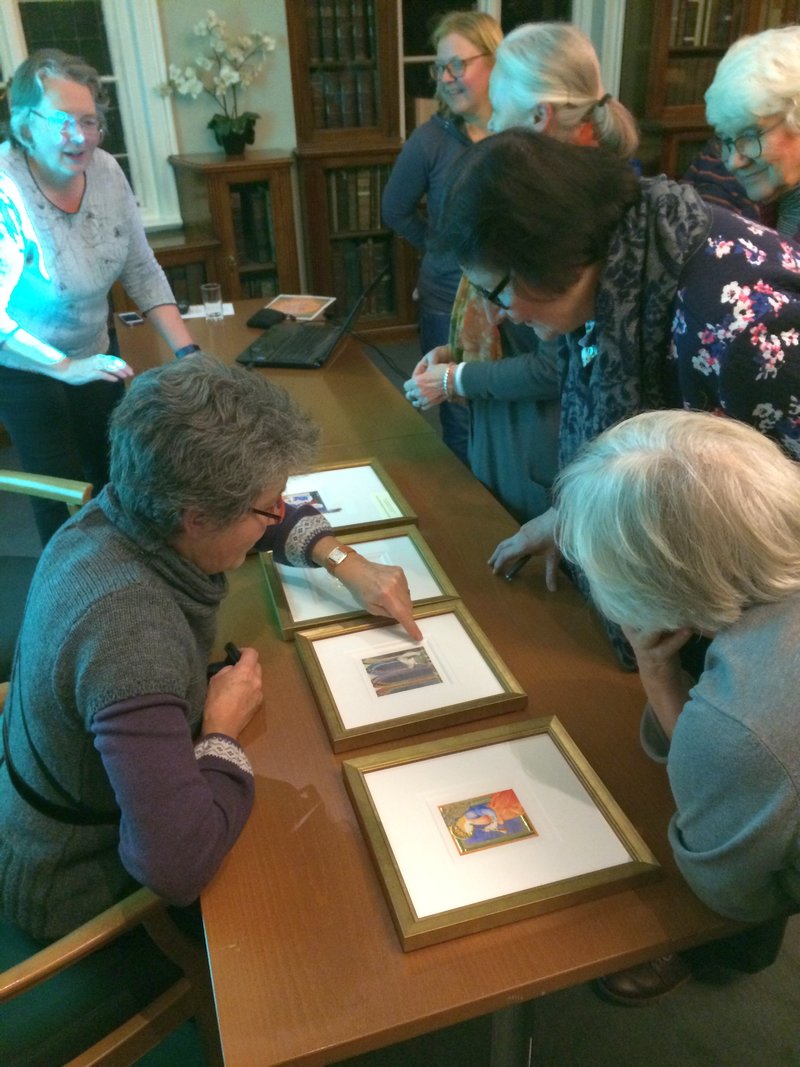
We all fell in love with the little koala bear sitting on a beautifully illuminated letter ‘K’. What an illuminating evening Toni gave us, a perfect way to round off the year.
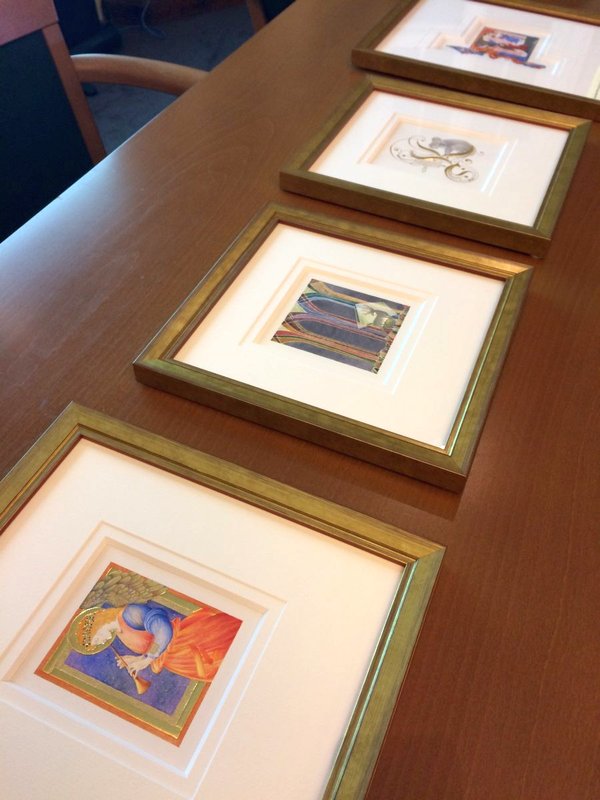
Perhaps surprisingly, art was not her first career choice. She trained first as a doctor, then became a wildlife artist and then moved into art and illumination becoming artist in residence at Lincoln Cathedral. Toni described her working life as medic, wildlife artist, someone who sticks gold on things and wondered what her next career move might be. We wait with bated breath and if there is another career move, hope Toni will come back and tell us about it.